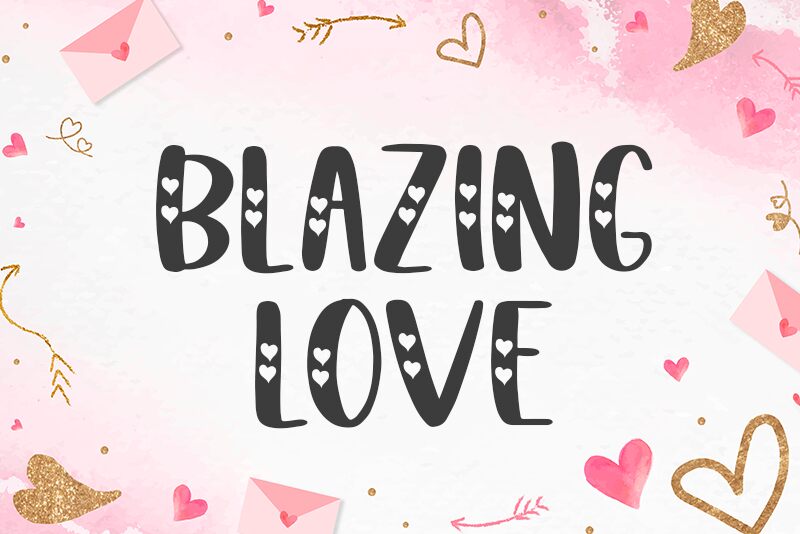
Blazing Love, created by Beautypes, is a font that captures the essence of romance and festivity. Its elegant curves and playful heart embellishments evoke the warm, affectionate sentiments associated with Valentine's Day. The font's condensed form allows for impactful headlines and statements of affection without overwhelming the page.
This charming typeface is ideal for personalizing heartfelt greetings, wedding invitations, or any project that calls for a touch of love. With Blazing Love, designers can infuse their creations with an air of amorous flair that's perfectly suited to holiday-themed designs and messages where passion takes center stage.